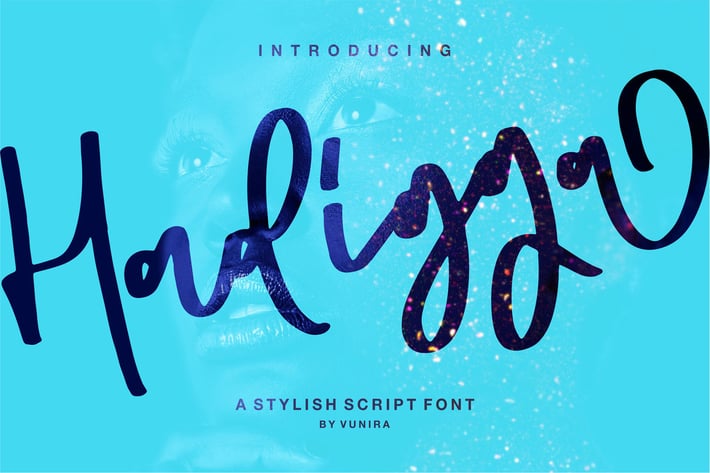
Hadigga | A Stylish Script Font
Hadigga | A Stylish Script Font with a calligraphy style, So beautiful on invitation like greeting cards, branding materials, business cards, quotes, posters, and more!